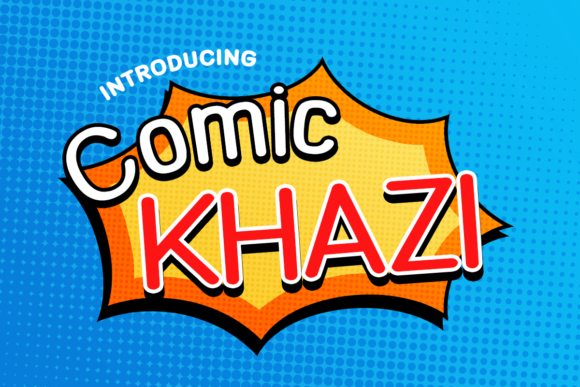
Introducing Comic Khazi Font: A Beautiful Typeface for Creative Projects
Comic Khazi is a stunning typeface that has been gaining popularity among designers, crafters, and typography enthusiasts. This beautiful font can be used for various purposes, making it a versatile addition to any design project. In this article, we’ll dive into the world of Comic Khazi, exploring its features, uses, and benefits.
What is Comic Khazi Font?
Comic Khazi is a unique and creative typeface that blends the playfulness of comic fonts with the elegance of traditional typography. Its distinctive style makes it perfect for projects that require a touch of whimsy and personality. Whether you’re designing a logo, creating a poster, or crafting a handmade card, Comic Khazi is an excellent choice.
Key Features of Comic Khazi Font
- Unique Character Set: Comic Khazi features a comprehensive character set, including uppercase and lowercase letters, numbers, and special characters.
- Playful and Elegant: The font’s design combines playful and elegant elements, making it suitable for a wide range of projects.
- High-Quality Design: Comic Khazi is designed with precision and attention to detail, ensuring that it looks great in various sizes and resolutions.
- Easy to Read: Despite its playful nature, Comic Khazi remains easy to read, making it perfect for body text and headings.
Uses of Comic Khazi Font
Comic Khazi’s versatility makes it an excellent choice for various design projects, including:
- Logo Design: Create a memorable and eye-catching logo with Comic Khazi’s unique and playful style.
- Posters and Flyers: Add a touch of personality to your posters and flyers with Comic Khazi’s elegant and whimsical design.
- Handmade Crafts: Use Comic Khazi to add a personal touch to your handmade crafts, such as cards, scrapbook pages, and journal entries.
- Digital Art: Incorporate Comic Khazi into your digital art projects, such as illustrations, comics, and graphic novels.
Benefits of Using Comic Khazi Font
By choosing Comic Khazi for your design projects, you’ll enjoy several benefits:
- Stand Out: Comic Khazi’s unique style will help your design stand out from the crowd and grab attention.
- Flexibility: The font’s versatility makes it suitable for various projects, from playful to professional.
- High-Quality: The font’s high-quality design ensures that it will look great in various sizes and resolutions.
Tips for Using Comic Khazi Font
To get the most out of Comic Khazi, follow these tips:
- Experiment with Sizes: Try Comic Khazi in different sizes to see how it looks in various contexts.
- Pair with Other Fonts: Combine Comic Khazi with other fonts to create a unique and interesting typography.
- Use for Headings: Use Comic Khazi for headings and titles to add a touch of personality to your design.
- Keep it Simple: Don’t overuse Comic Khazi – keep your design simple and focused to ensure the font shines.
Comic Khazi is a beautiful typeface that offers a unique blend of playfulness and elegance. Its versatility makes it an excellent choice for various design projects, from logos and posters to handmade crafts and digital art. With its high-quality design, easy-to-use nature, and flexibility, Comic Khazi is a great addition to any designer’s toolkit. So why not give Comic Khazi a try and see how it can elevate your design projects?